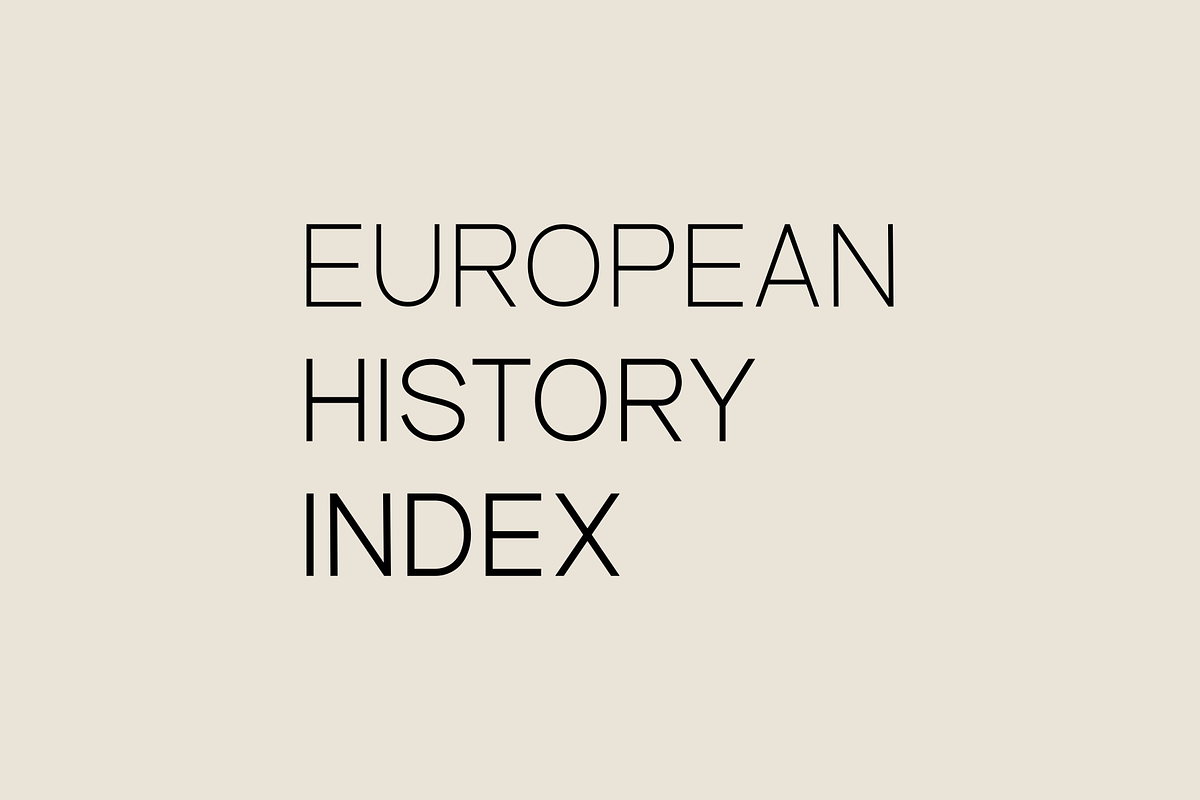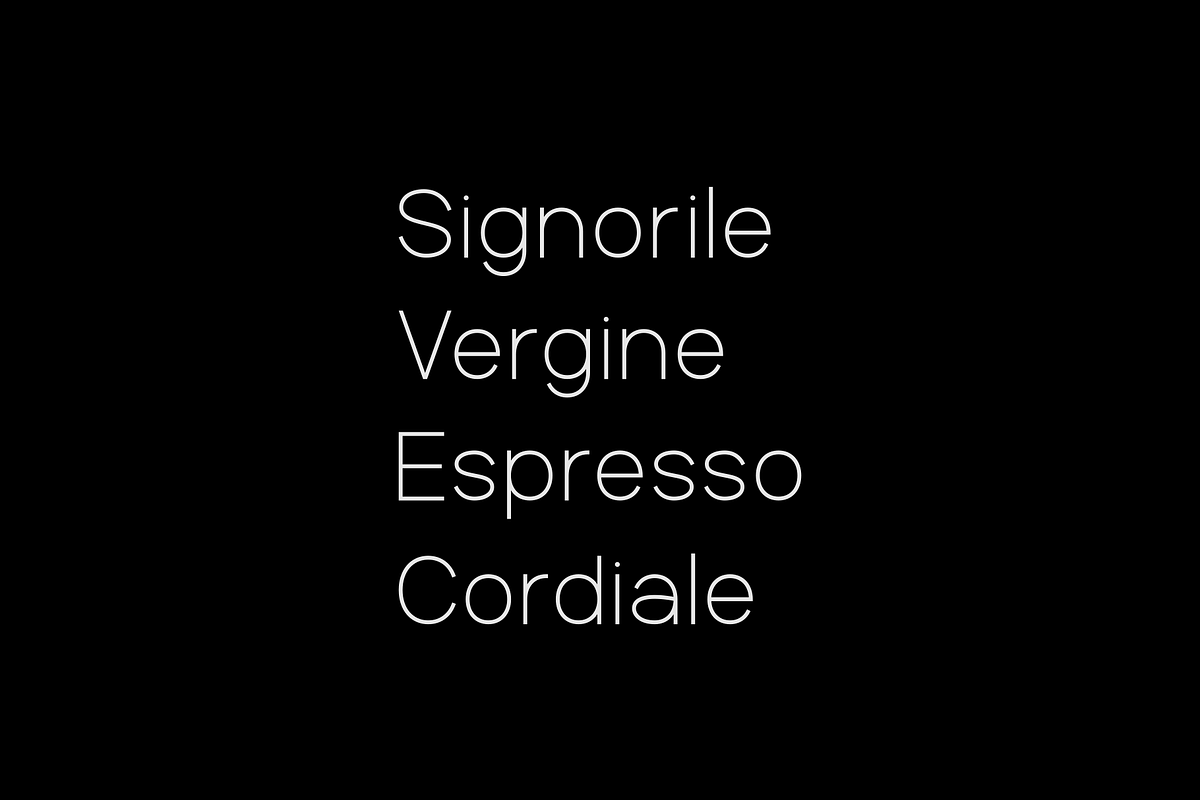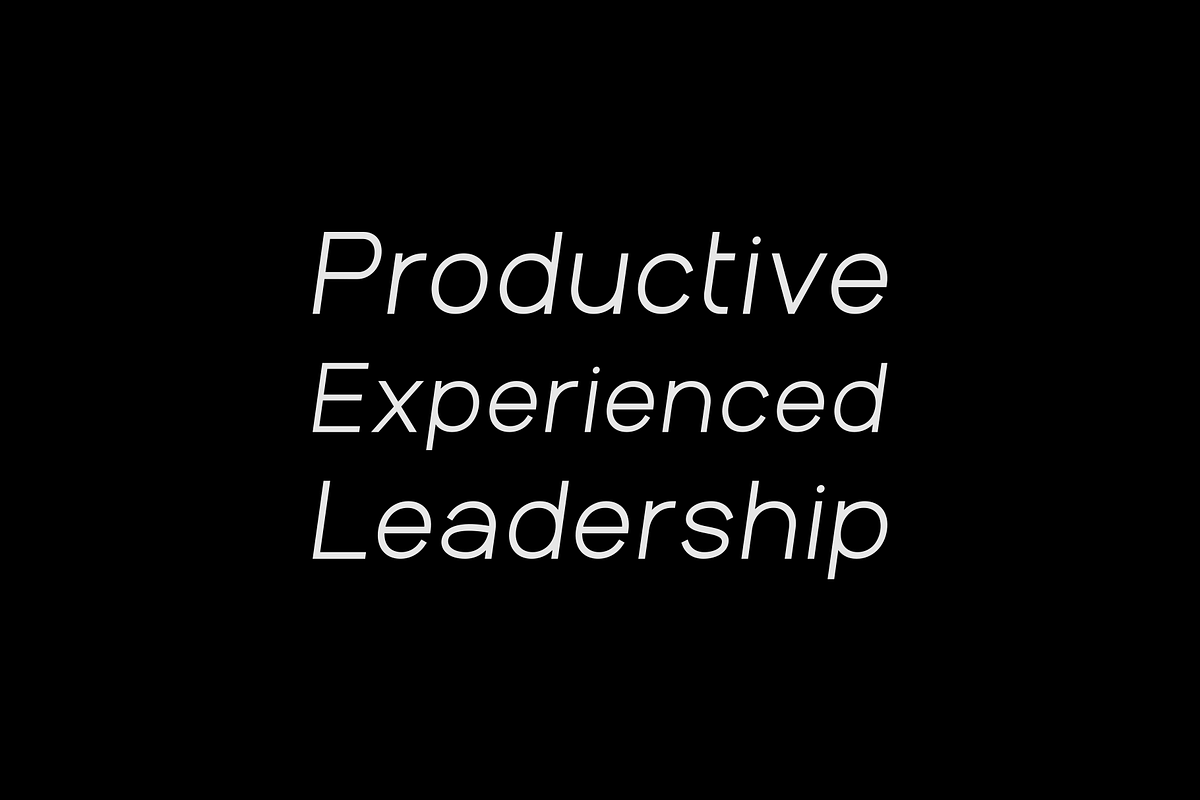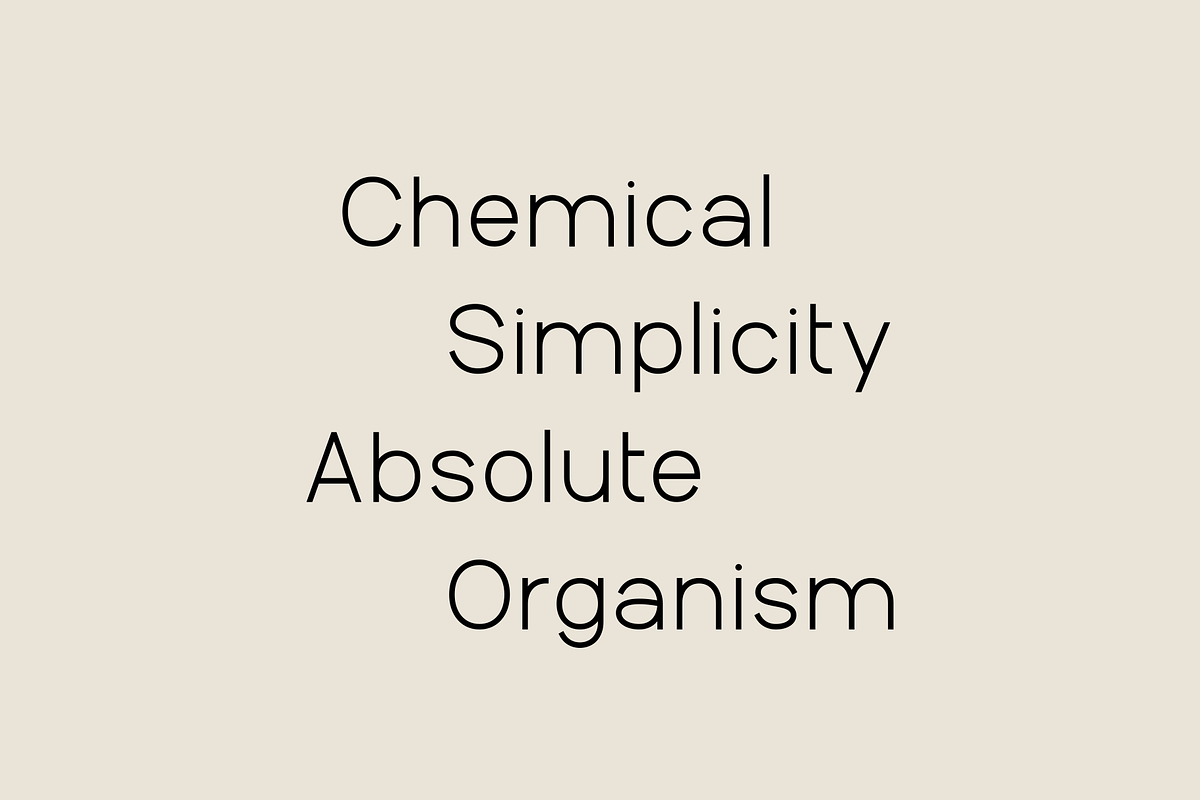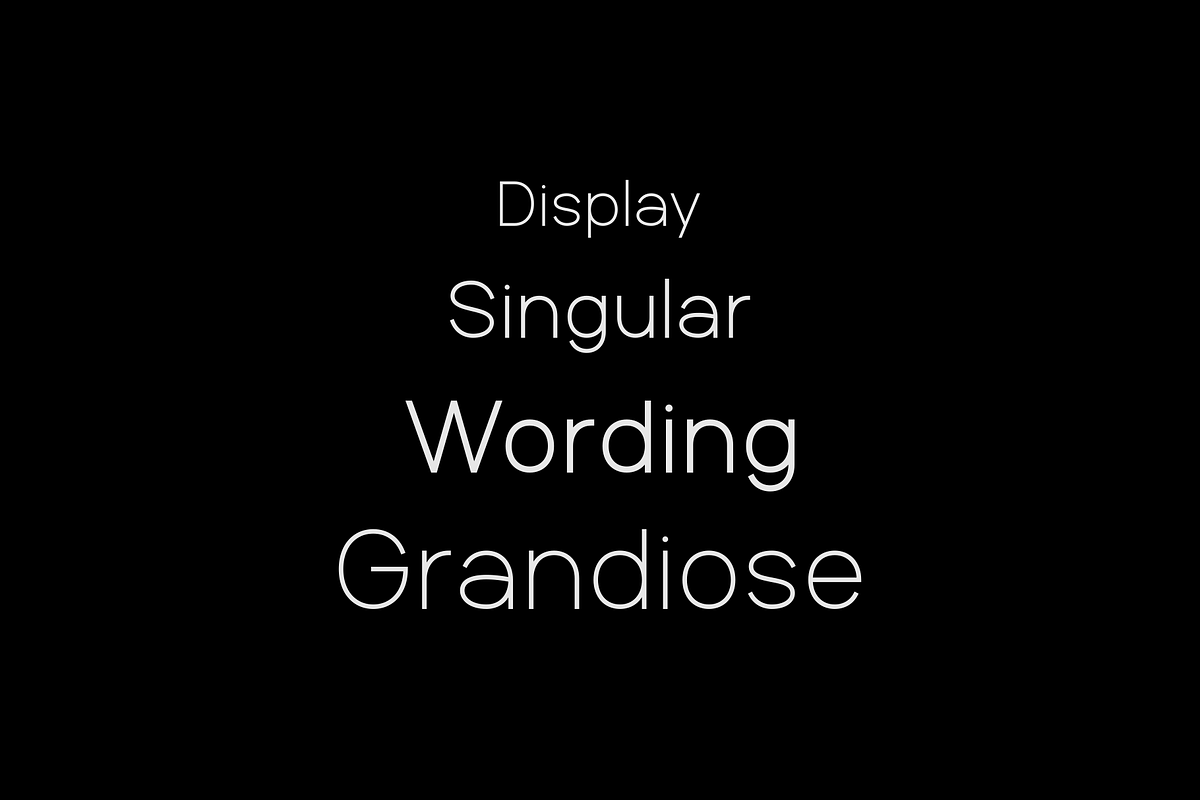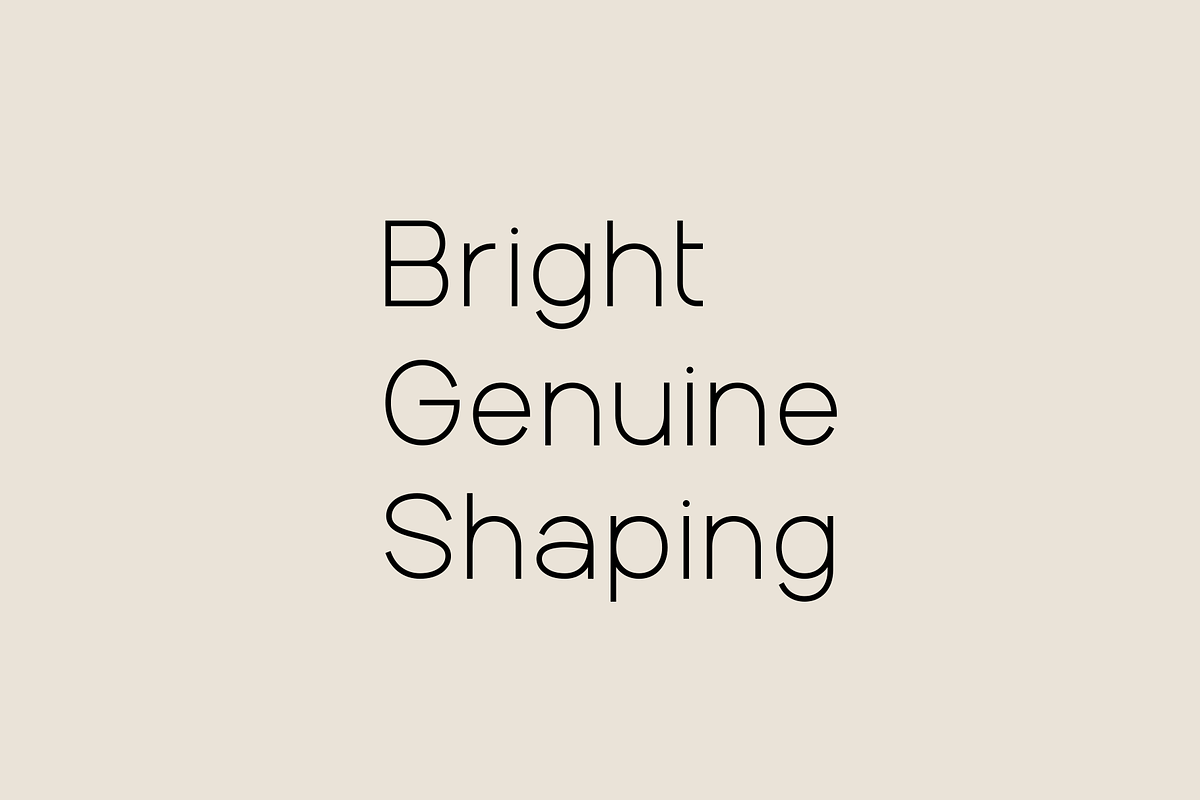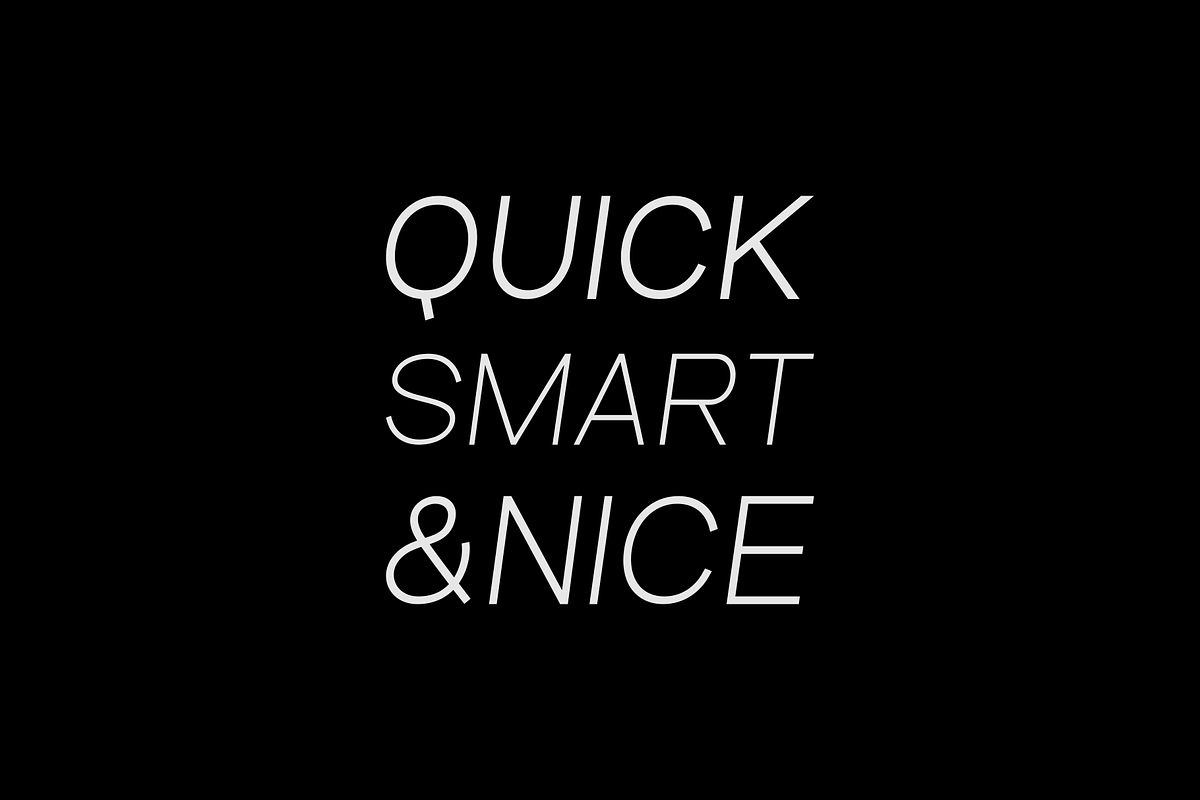
Aperta - Font Family
Adita is a font family that elevates the content of its characters.
- Adita is a font family that elevates the content of its characters.
Why Aperta - Font Family is worth a look
Aperta - Font Family by Stefano Giliberti fits naturally into Branding, posters, packaging, typography.